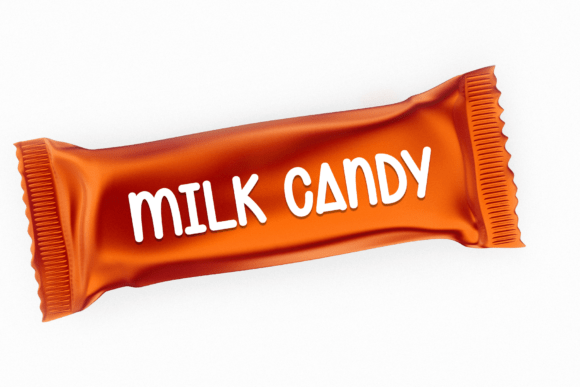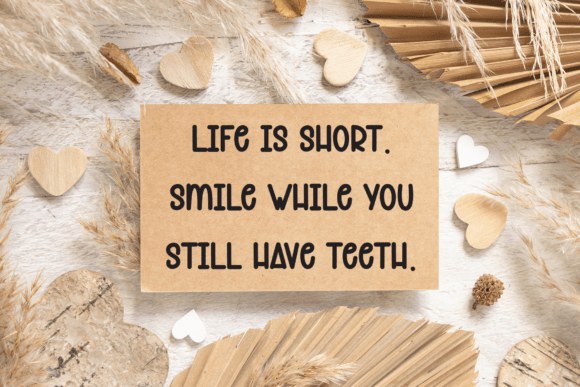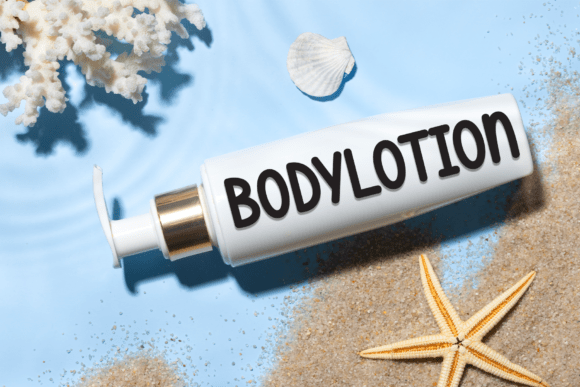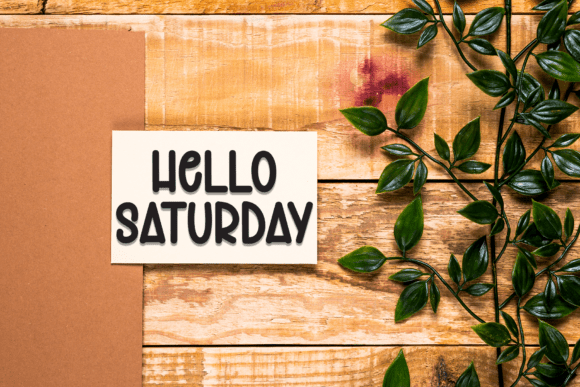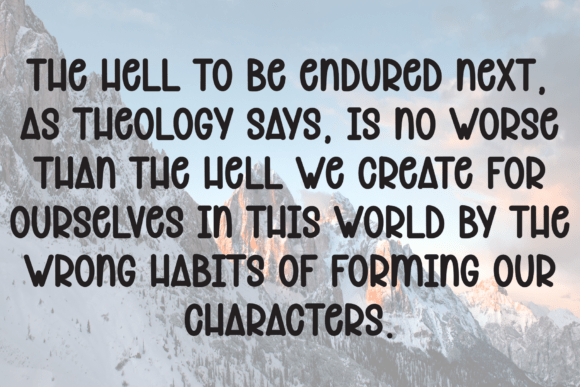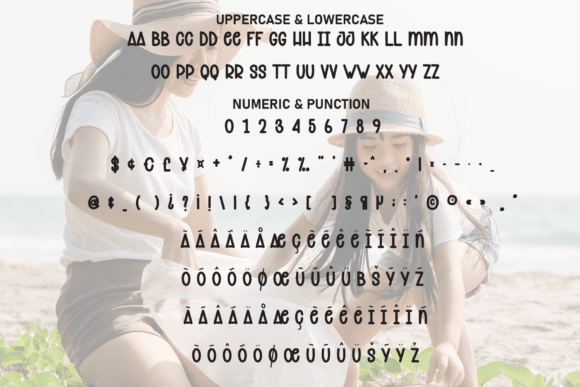
Introduction to Beach Mother Font
As a designer, have you ever been stuck on a project, struggling to convey the perfect message or vibe? I know I have – there’s nothing quite like the feeling of staring at a blank page, waiting for inspiration to strike. But then, one day, it hits: the perfect font, the perfect color palette, and suddenly, your project comes alive. For me, that font was the Beach Mother Font – a beautiful, laid-back typeface that screams summer and relaxation.
As a valuable design resource, the Beach Mother Font offers a unique combination of clean lines, easygoing vibes, and high-quality typography. Whether you’re working on a summer poster, event flyer, or playful branding project, this cheerful typeface is sure to bring a breezy, laid-back feel to your work.
Key Features of Beach Mother Font
- High-quality design resource with a unique, hand-drawn feel, perfect for creative projects.
- Includes 6 font styles with various weights and textures, offering versatility for various design needs.
- Character set includes uppercase and lowercase letters, numbers, and punctuation marks, making it suitable for various design applications.
Honest Review: Beach Mother Font
I recently came across the Beach Mother Font, a design resource that caught my attention with its unique and quirky style. As a designer, I’m always on the lookout for high-quality fonts that can add a creative touch to my projects.
Here are some things that work well with the Beach Mother Font: ✨
- High-quality design: The font has a professional look and feel, making it suitable for a wide range of creative projects.
- Transparency options: The font comes with a transparent background, allowing for seamless integration with other design elements.
However, I did encounter some limitations with the Beach Mother Font: ⚠️
- Limited character set: The font only includes a limited set of characters, which may not be suitable for complex text-based projects.
- No bold or italic styles: The font only comes in a regular style, which may not provide enough versatility for some designers.
Overall, I was impressed with the Beach Mother Font’s unique design and high-quality construction. While it may have some limitations, it’s an excellent option for designers working on creative projects that require a distinctive and eye-catching font.
The Beach Mother Font is a high-quality design resource perfect for creative projects that need a touch of elegance and sophistication. With its beautiful, cursive script and transparent background, it’s ideal for designers looking to add a unique element to their designs.
To get the most out of the Beach Mother Font, try combining it with other design elements, such as graphics and textures, to create a unique and eye-catching design.
The Beach Mother Font is perfect for a variety of creative projects, including:
- Food and drink labels
- Home decor and furniture designs